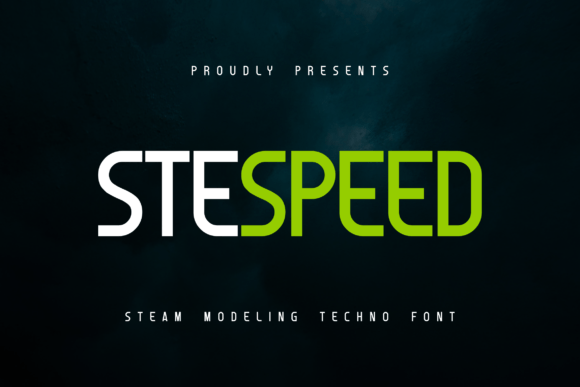
Behold, Stespeed Font—a revolutionary sans serif typeface that defies convention and unleashes a dynamic spirit into your designs. This font is not merely a collection of letters; it is a conduit for expressing raw power and igniting a burning passion within your creative endeavors.
Immerse yourself in the world of sports and athleticism as you harness the energy of Stespeed Font. Its bold and commanding strokes perfectly capture the essence of competition, whether on the field or in the arena of life. Elevate your team's jerseys, logos, and promotional materials with a font that exudes strength, determination, and unyielding spirit.
Beyond the realm of sports, Stespeed Font transcends boundaries and finds its home in a multitude of creative projects. Unleash your imagination and let this font breathe life into movie titles, documentary intros, and film posters. Its striking presence ensures that your message will leave an indelible imprint on the minds of your audience.
For those seeking distinction and individuality, Stespeed Font beckons you to explore its versatility. Whether crafting book covers that demand attention or headlines that command respect, this font stands ready to amplify your words and transform them into visual masterpieces. Its innate ability to capture the essence of motion and energy makes it an ideal choice for game developers and artists seeking a font that matches the intensity of their creations.
Join the ranks of those who dare to be different and embrace the magnetic allure of Stespeed Font. Let your creativity soar as you discover new frontiers of expression with this extraordinary typeface.